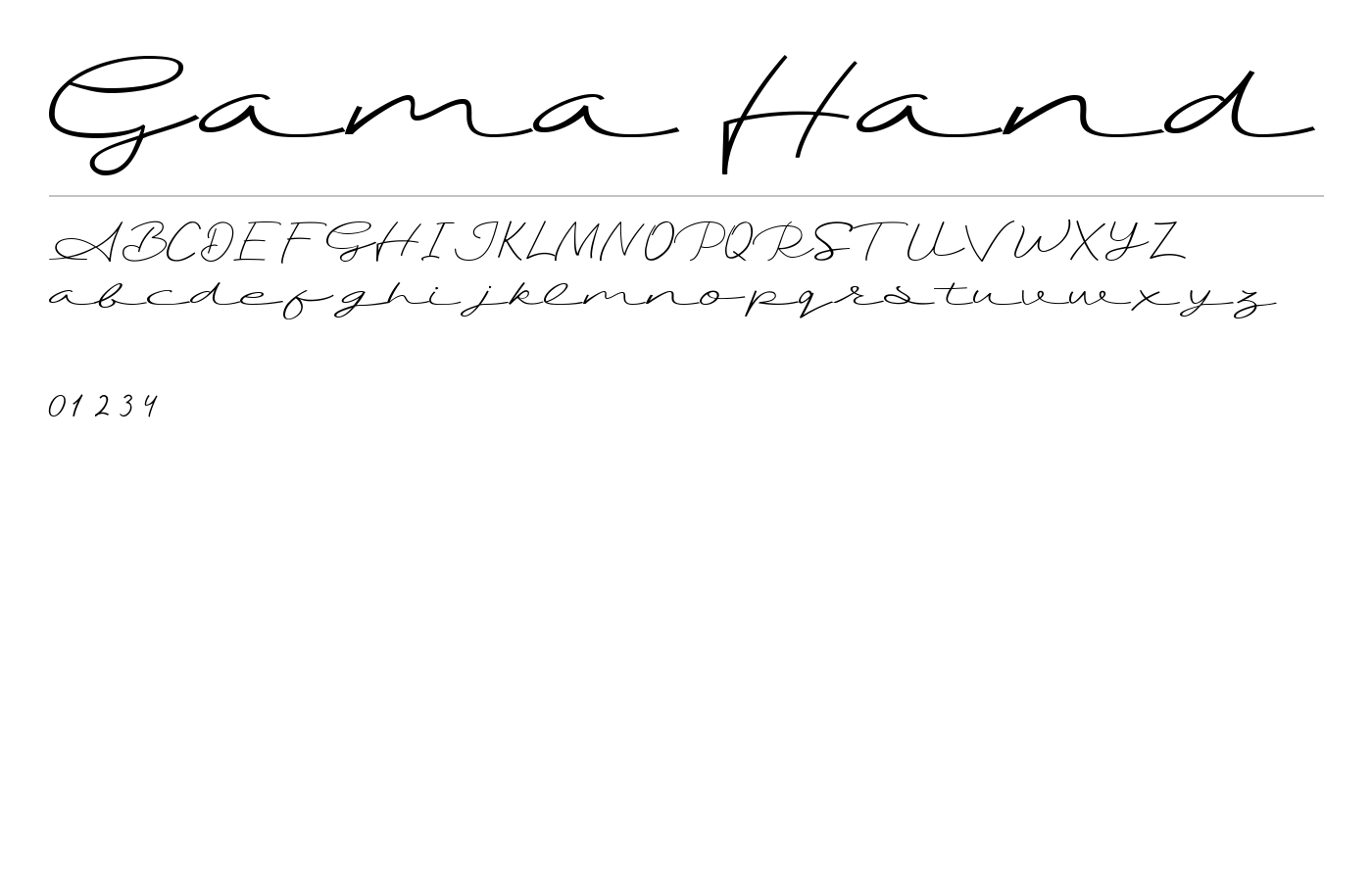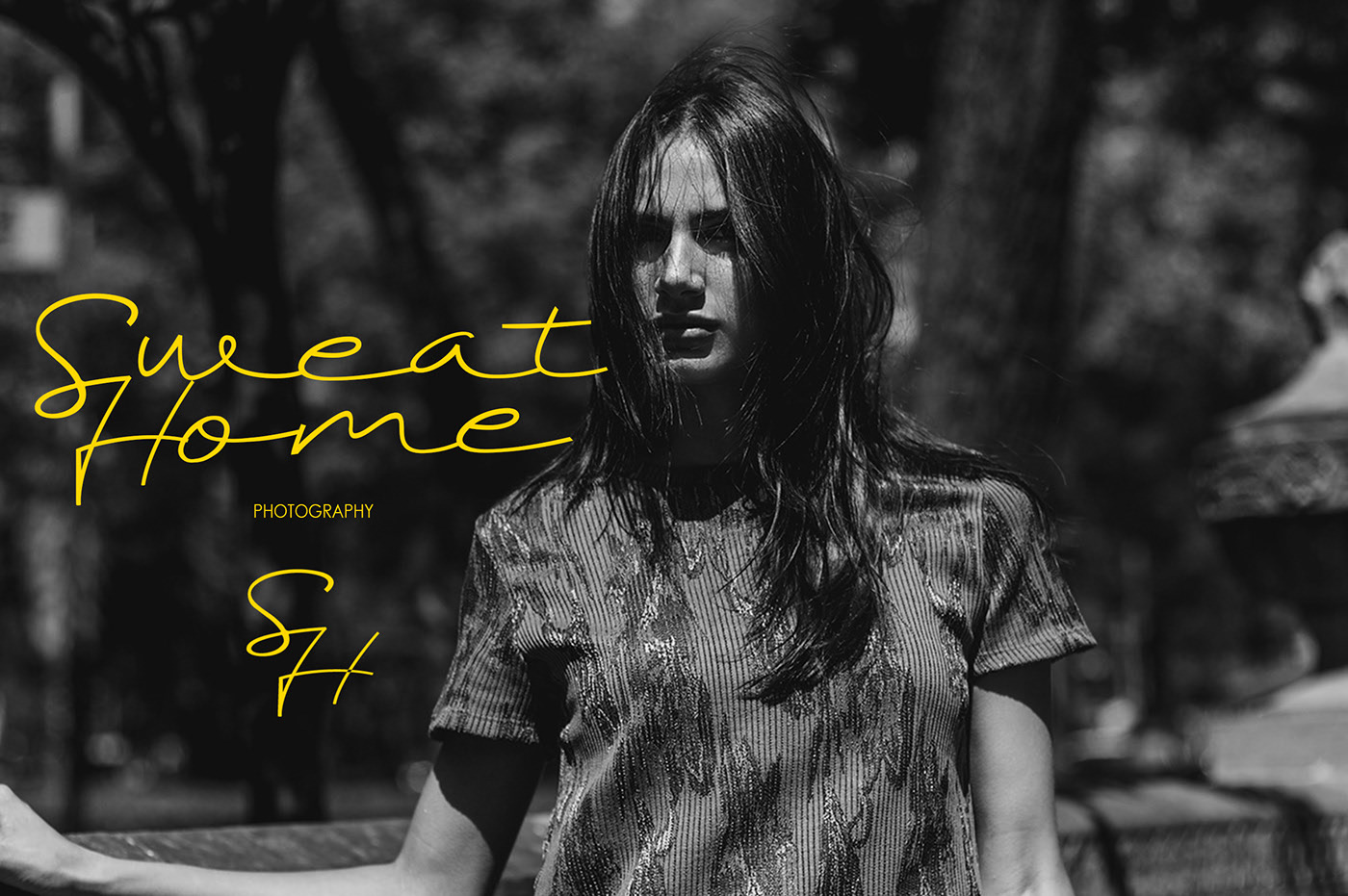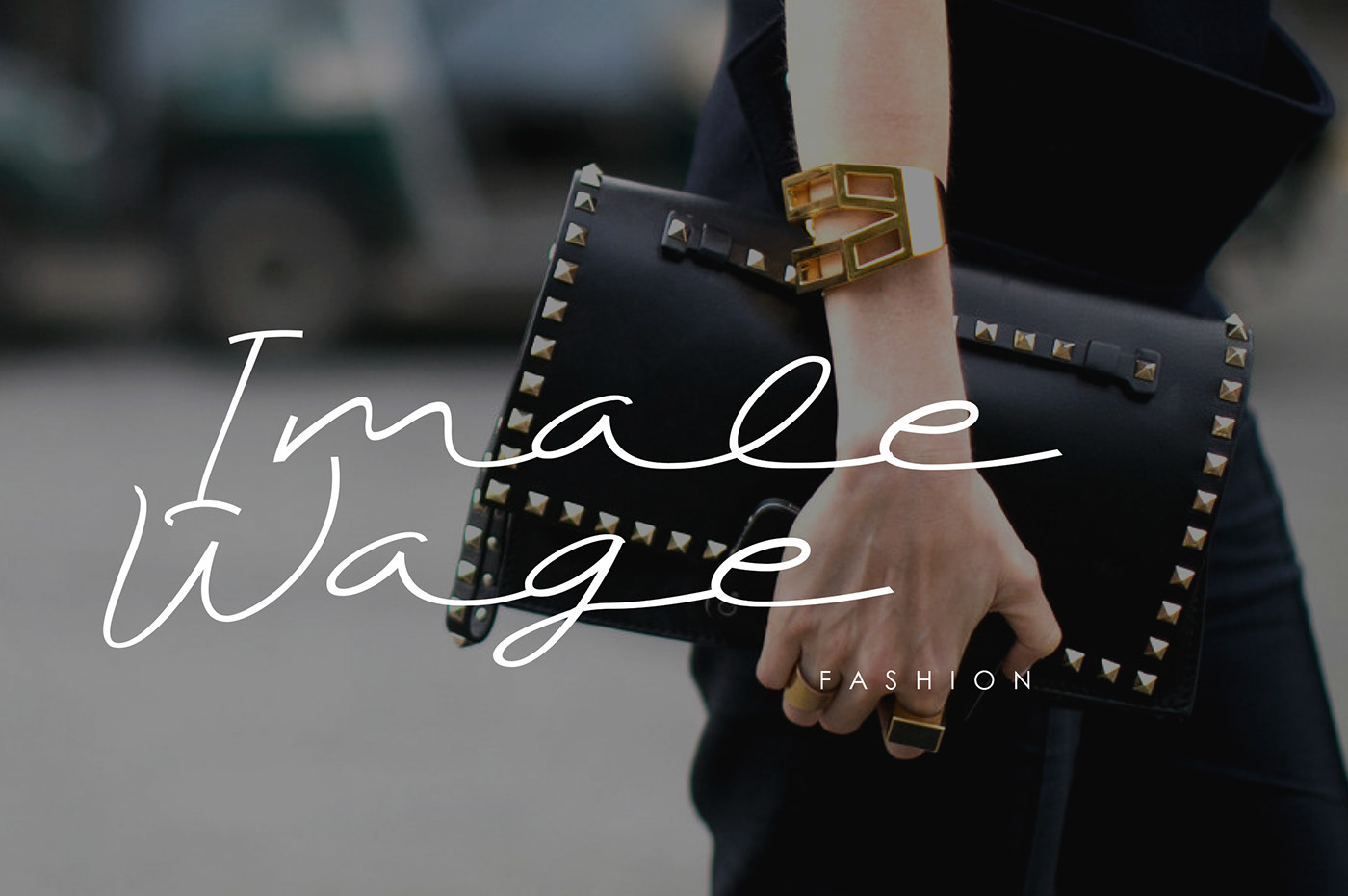
Gama Hend is a delicate, handwritten script font characterized by thin, flowing strokes that mimic elegant cursive handwriting. Its light weight and airy spacing give it a graceful, personal touch, making it ideal for invitations, branding, and any design that seeks a refined, handcrafted feel. This font works well where a sophisticated yet approachable style is desired, especially in luxury or creative projects.
Gama Hend Handwriting Font
About Gama Hend Handwriting Font
| Font family | Gama Hend Handwriting Font |